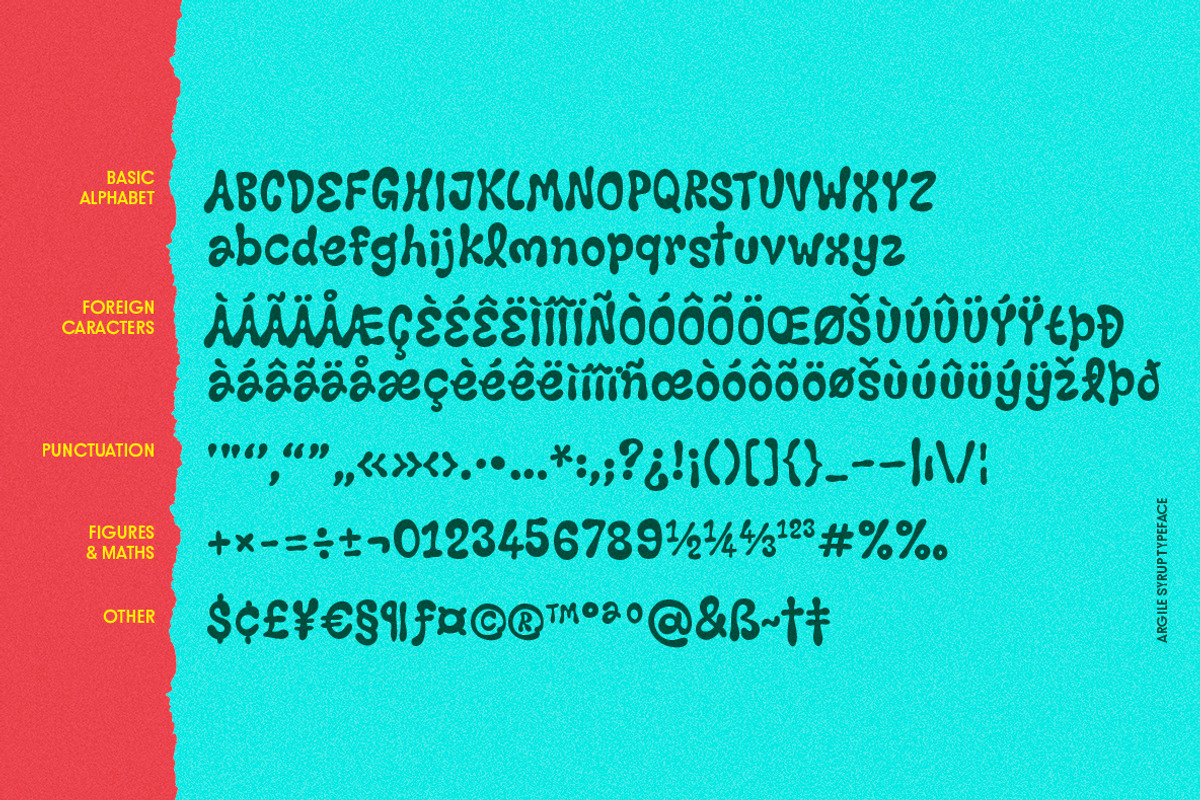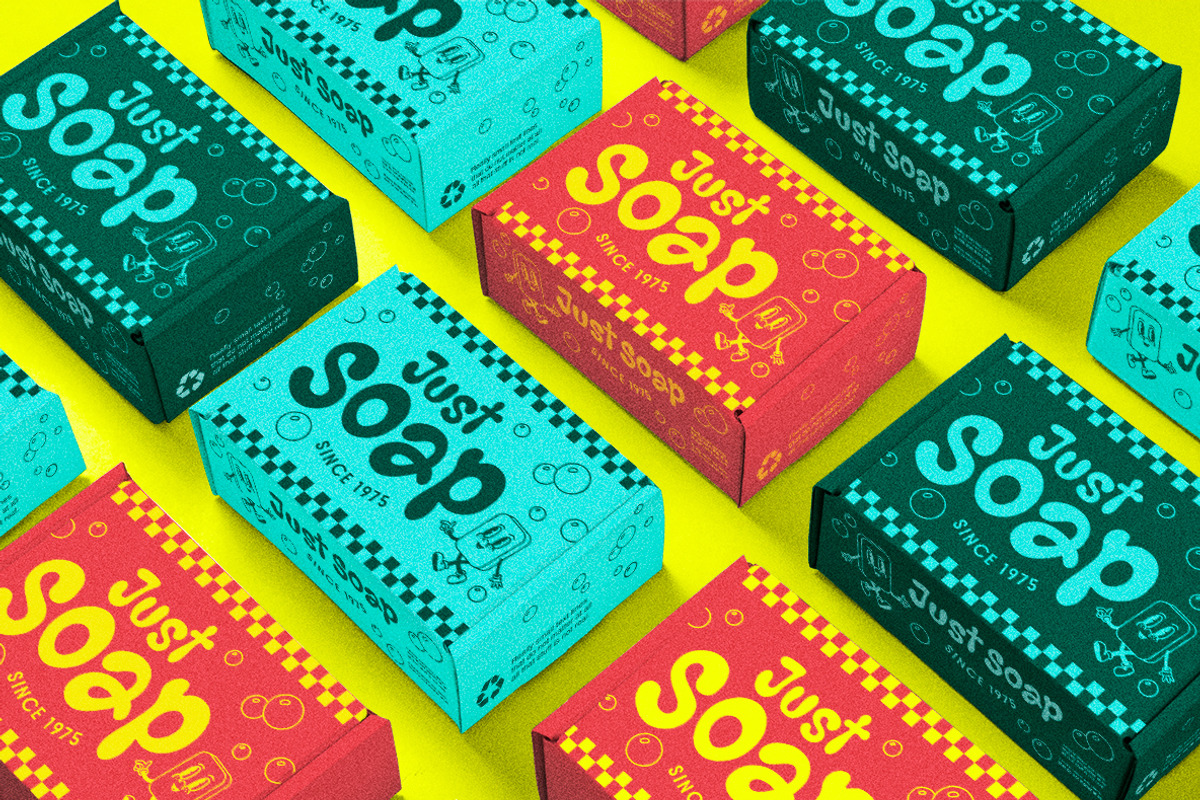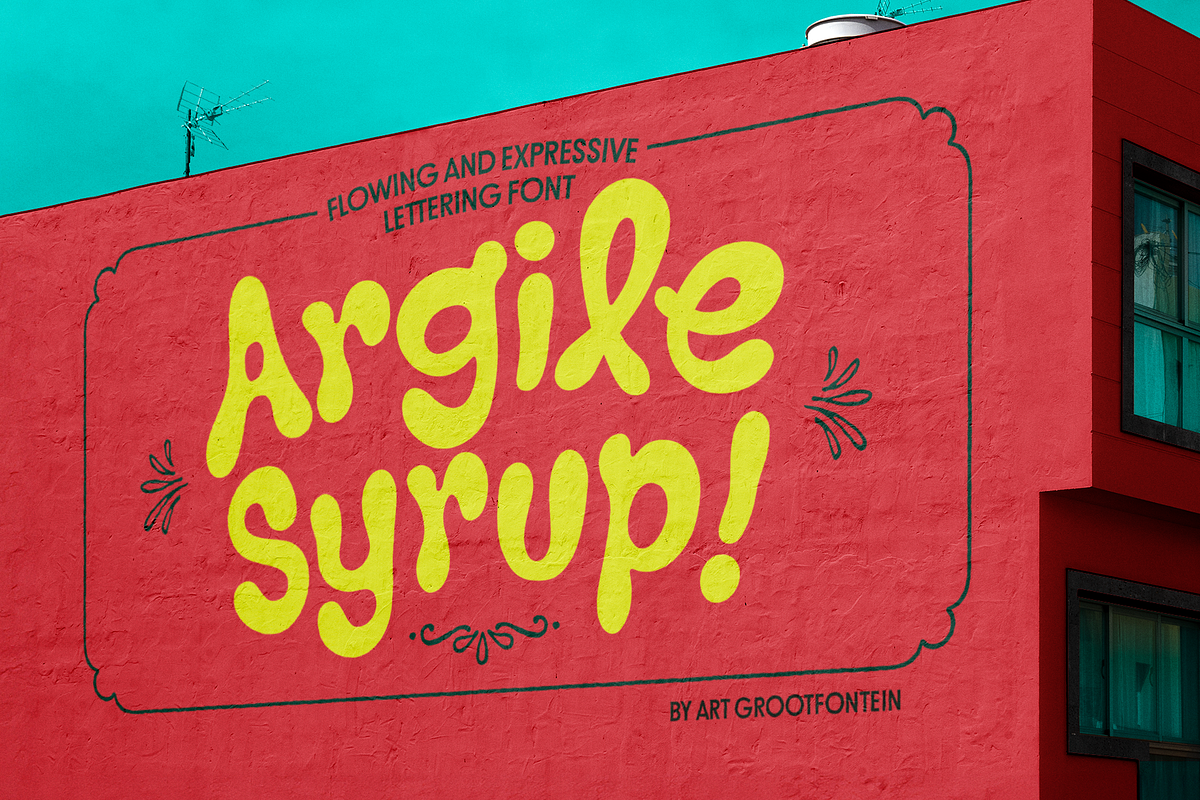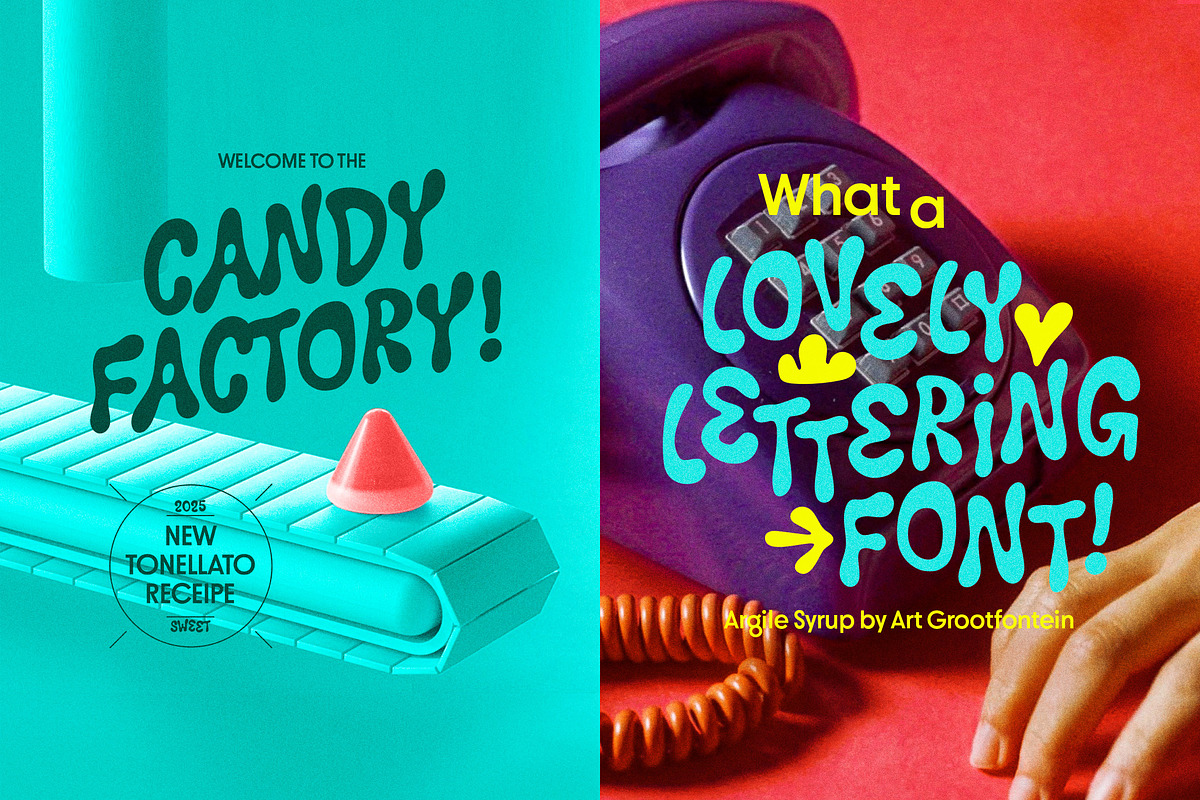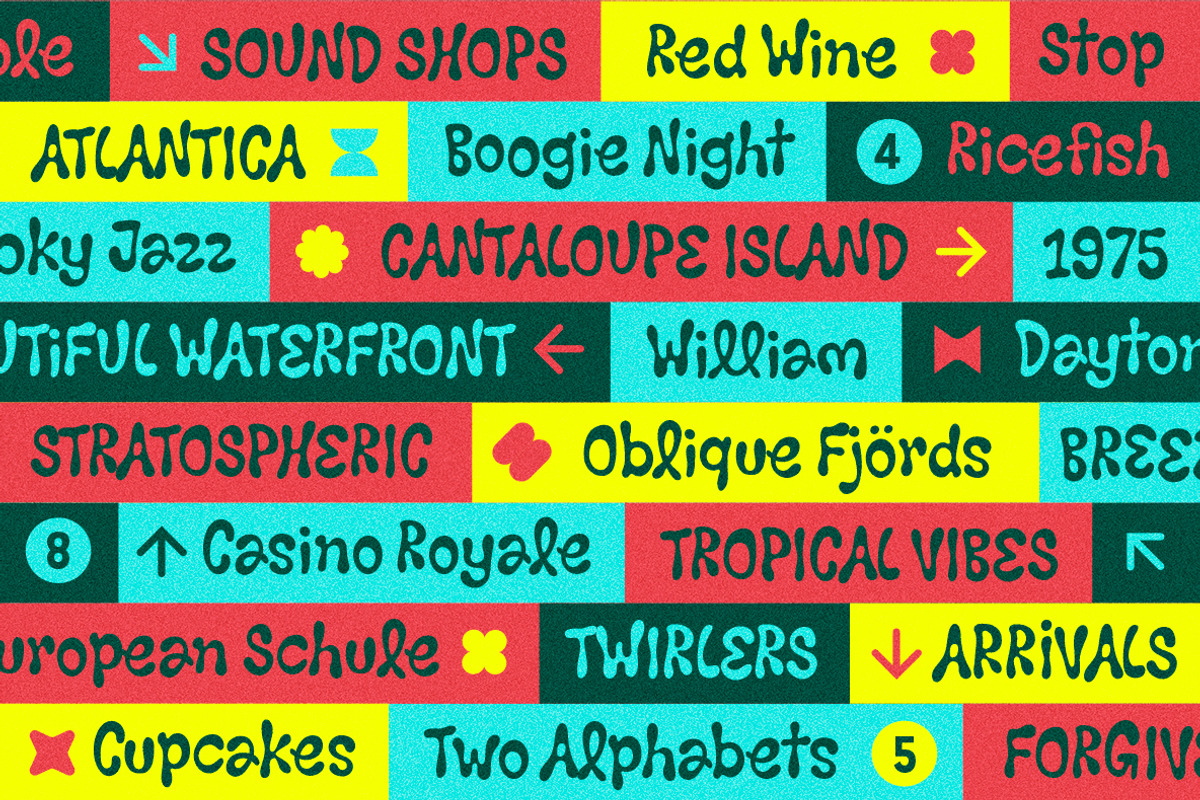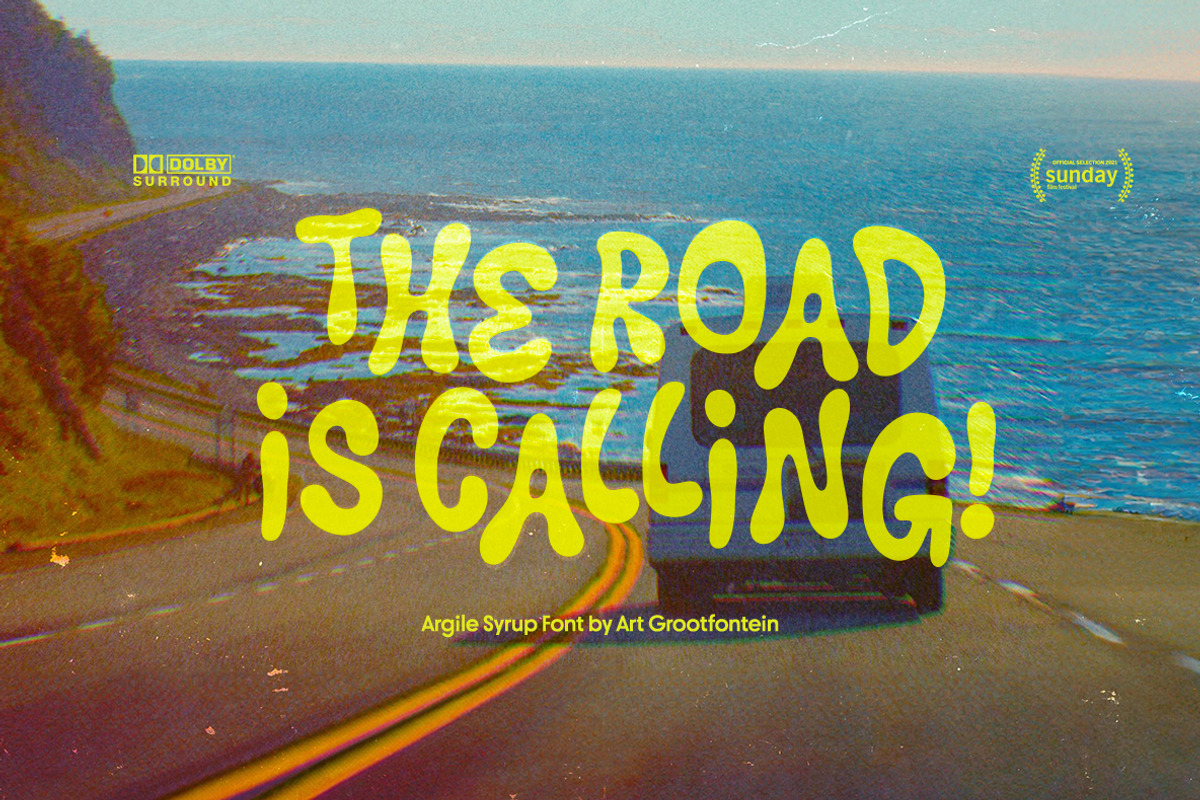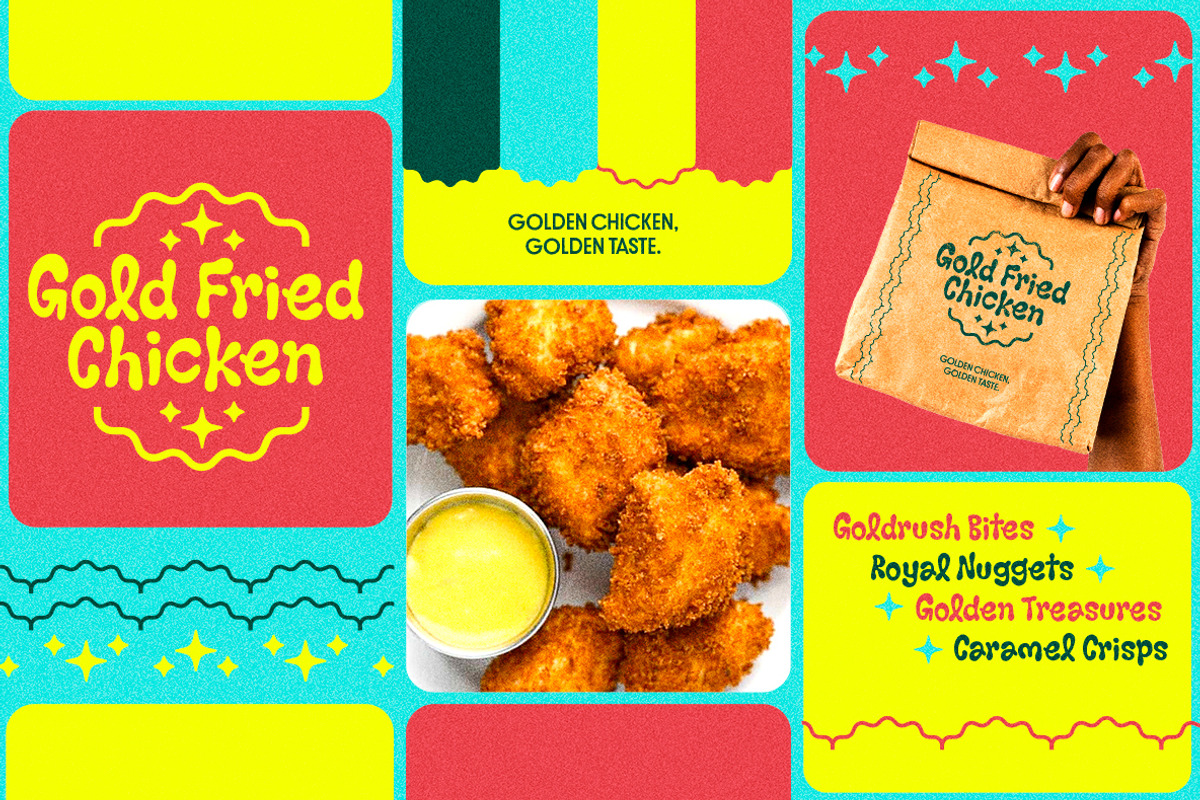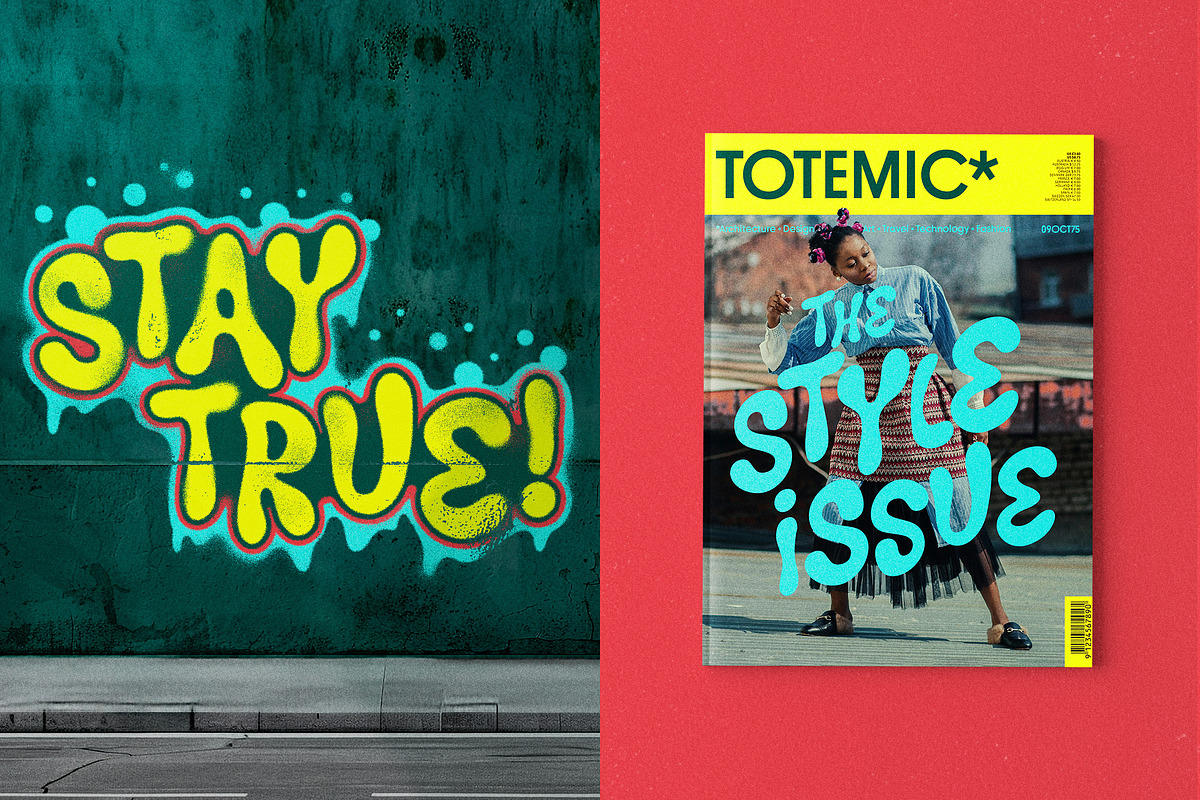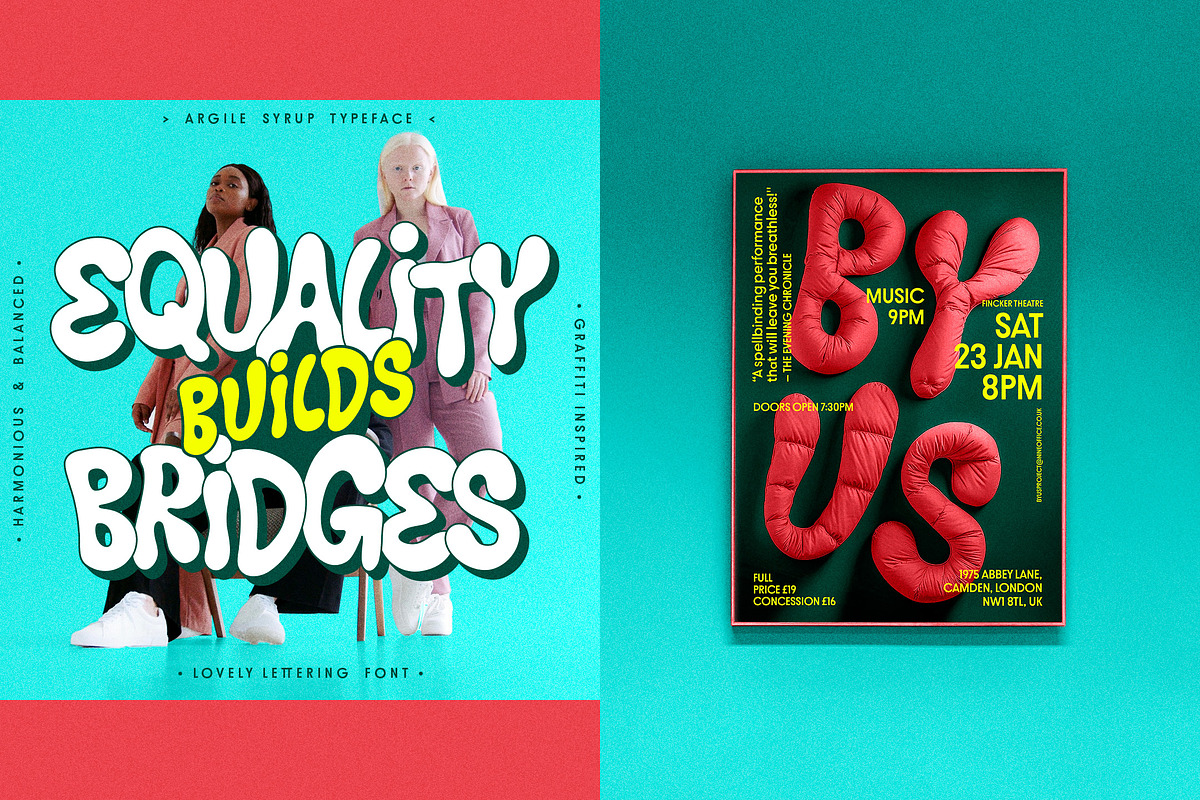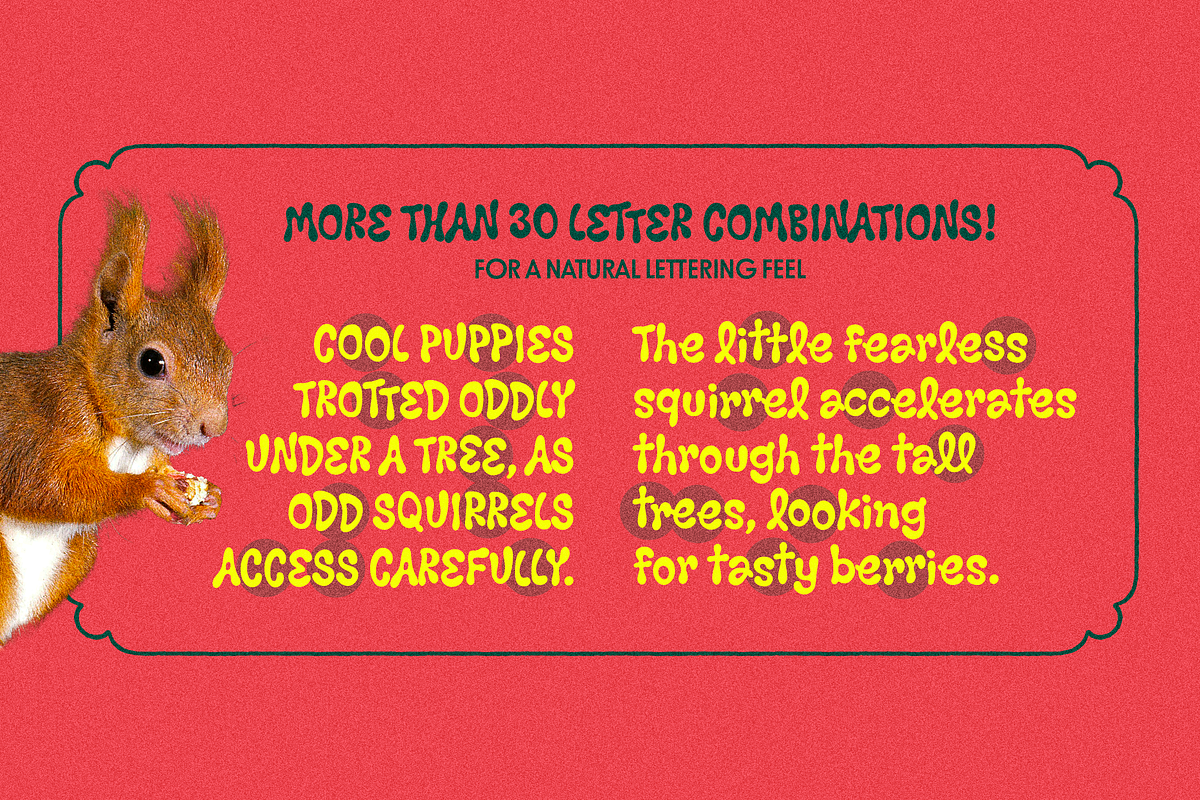
Argile Syrup Family
Argile Syrup is a flowing and expressive lettering font. Its unique liquid design and numerous dynamic letter combinations give it the hand-drawn look of a lettering designer. Argile Syrup adds an eccentric personality to your design projects, offering a creative way to capture attention. Argile Syrup comes in 3 weights : Regular, Medium and Bold.